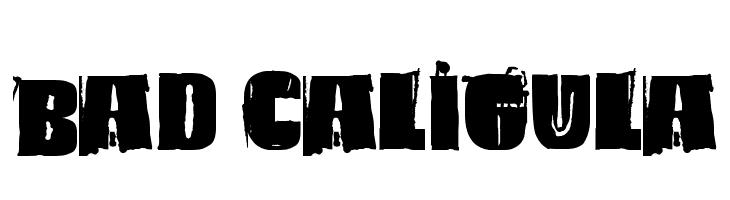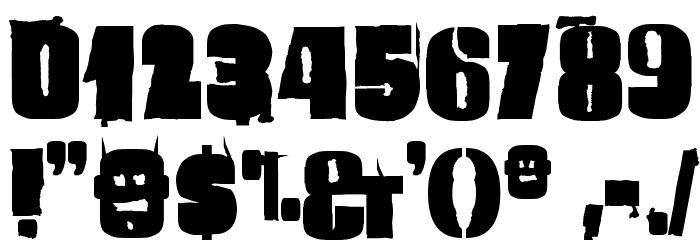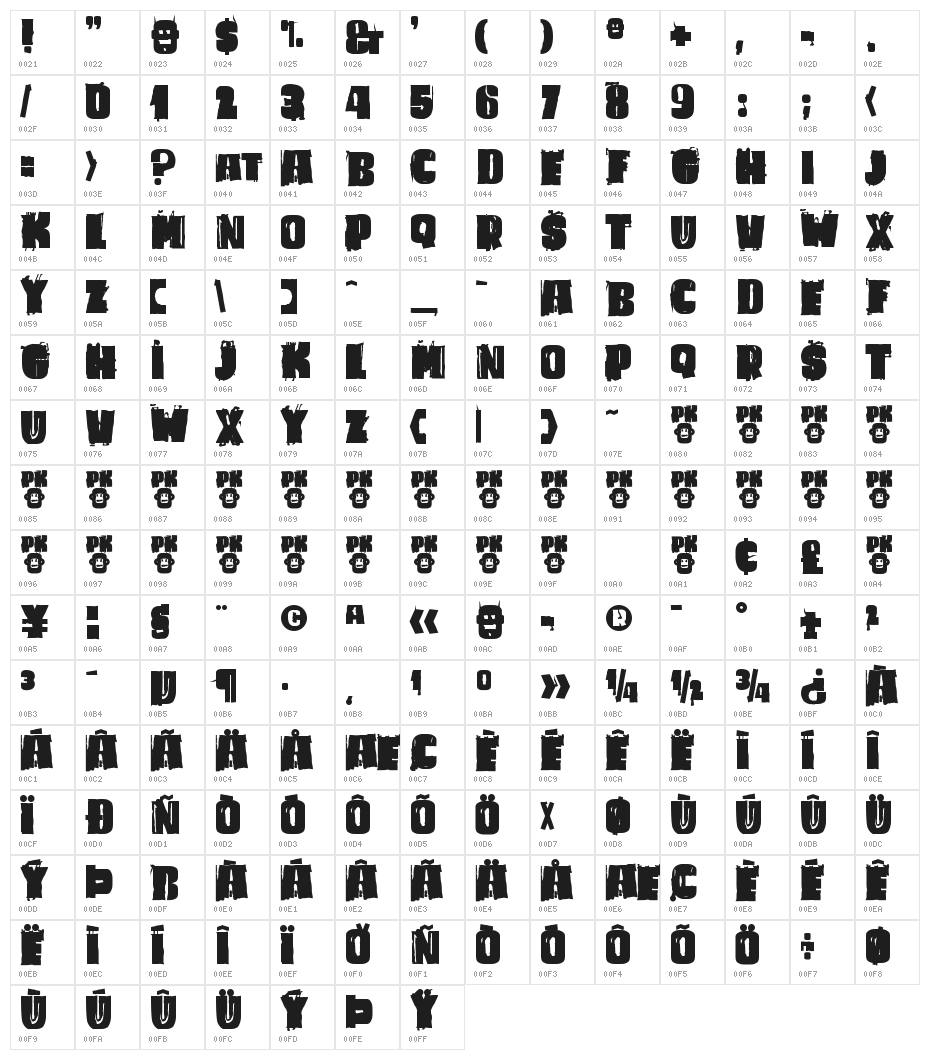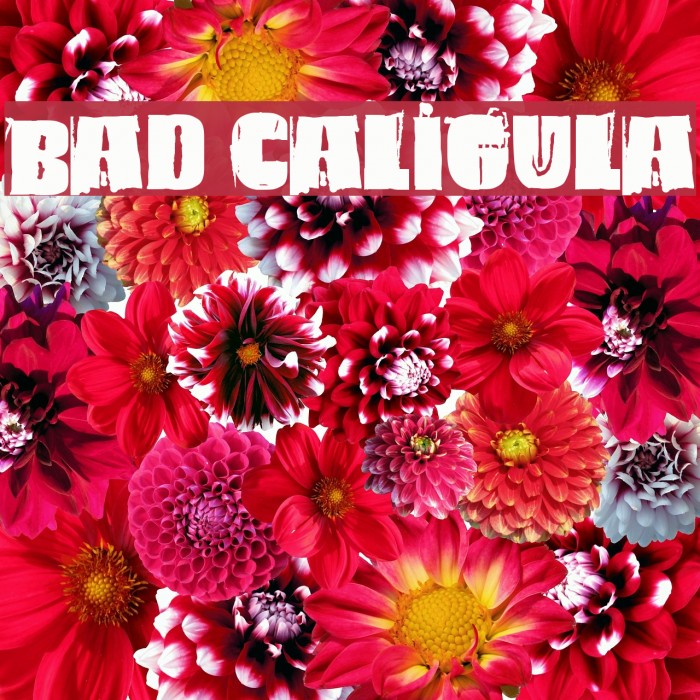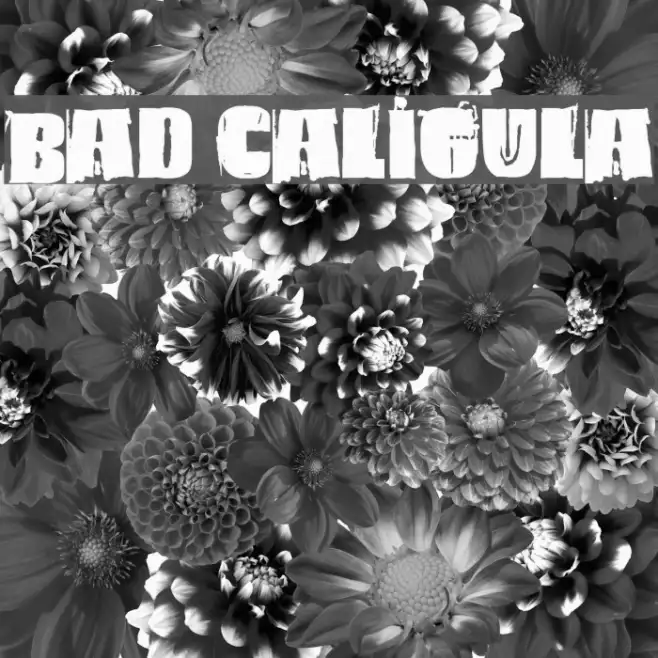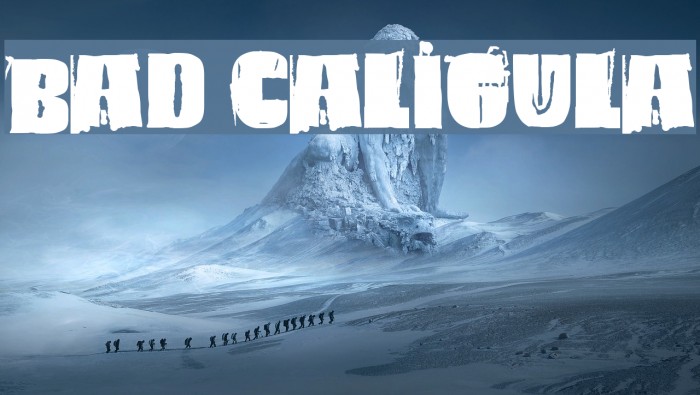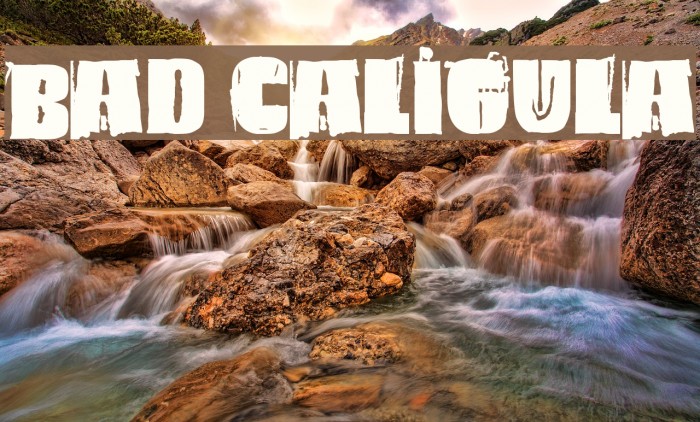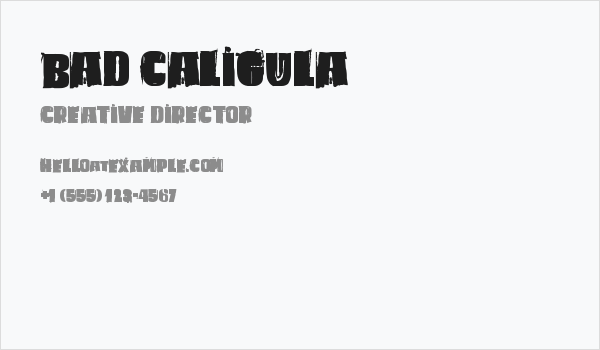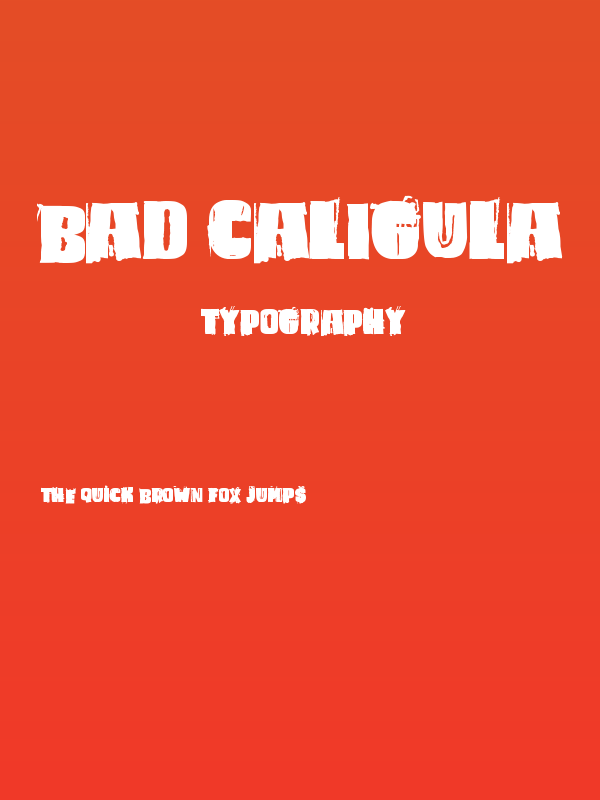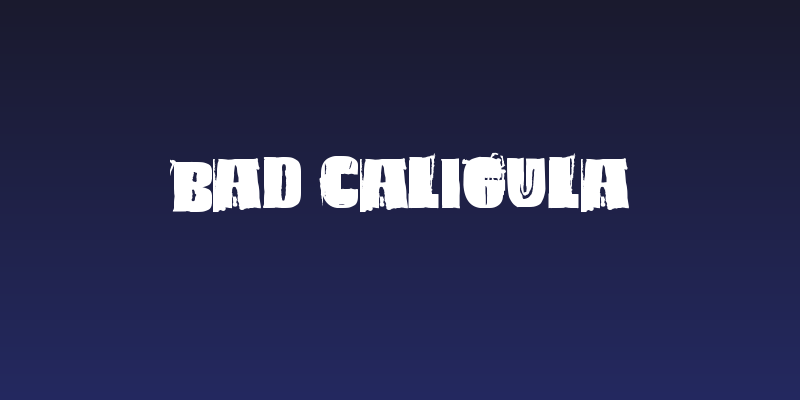
Bad Caligula Font
Bad Caligula Description
This font features a bold and distressed style, characterized by its rough, textured edges and uneven strokes. The letters appear as if they have been eroded or splattered, giving them a grungy and rebellious look. The uppercase and lowercase letters maintain a consistent height, contributing to a uniform appearance despite the chaotic design. Numbers and special characters follow the same distressed aesthetic, ensuring cohesion across all glyphs. The font's unique style makes it stand out, perfect for projects that require a bold statement or an edgy, urban vibe.
| Overall Style | Grunge, Urban, Edgy |
| Use Case | Headlines, Posters, Album Covers |
| Proposed Projects | Ideal for album covers, posters, street art, and any design needing a rebellious or edgy touch. |